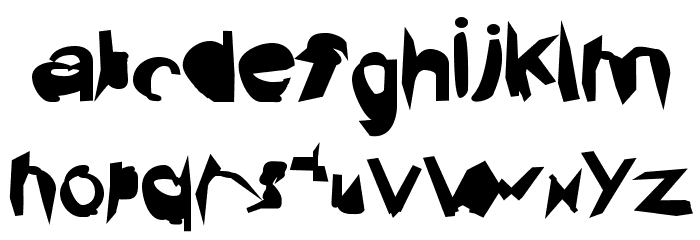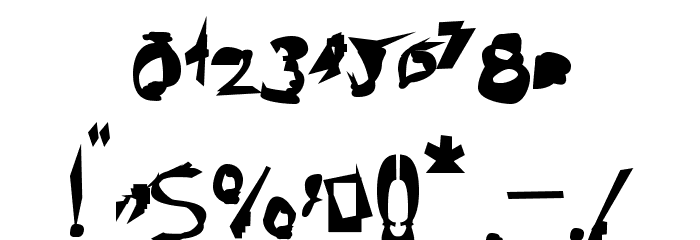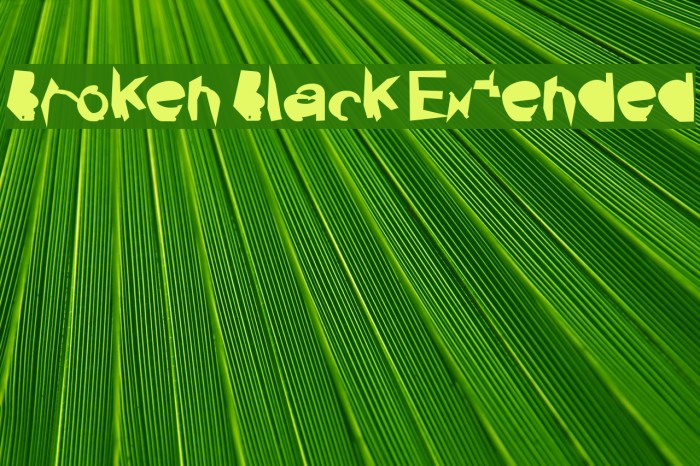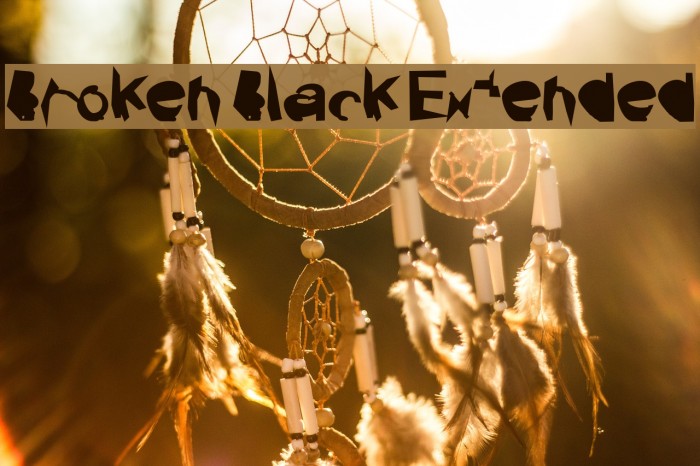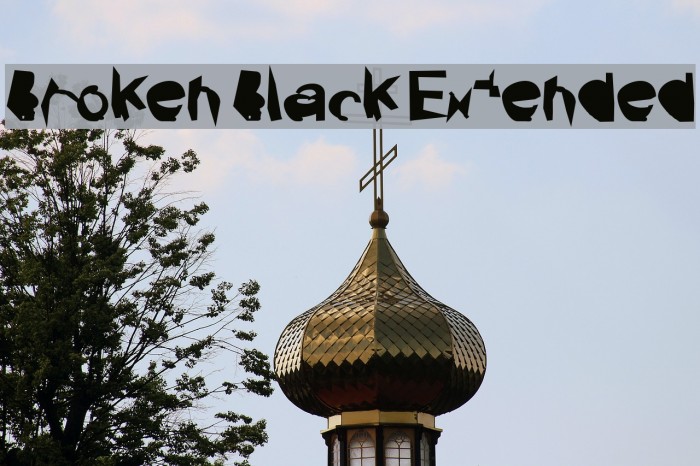
Broken Black Extended Font
This font features a bold and striking design with an abstract, fragmented appearance. Each character is uniquely shaped, creating a sense of movement and energy. The letters are heavily stylized, with sharp angles and irregular forms that give it a chaotic yet artistic feel. The uppercase and lowercase letters maintain a consistent theme, while the numbers and special characters continue the bold, broken aesthetic. This font is highly decorative and makes a strong visual impact, suitable for creative and unconventional projects.
A bold, abstract font with a fragmented, artistic design.
- Proposed Projects: Ideal for album covers, posters, graffiti art, and edgy branding materials.
- Width: Expanded
- Overall Style: Modern, Artistic